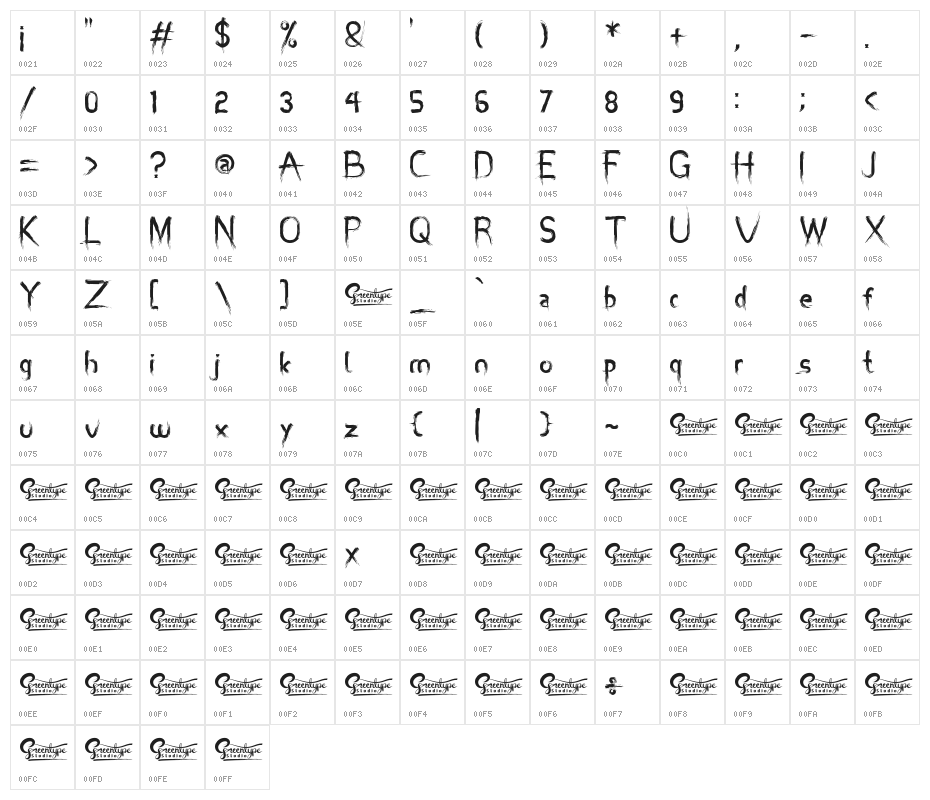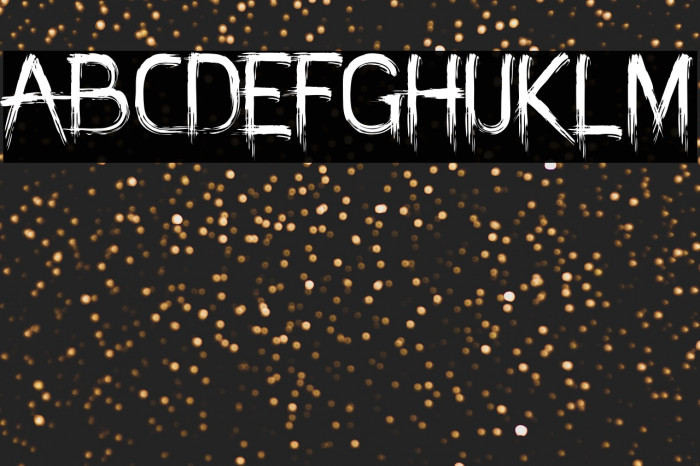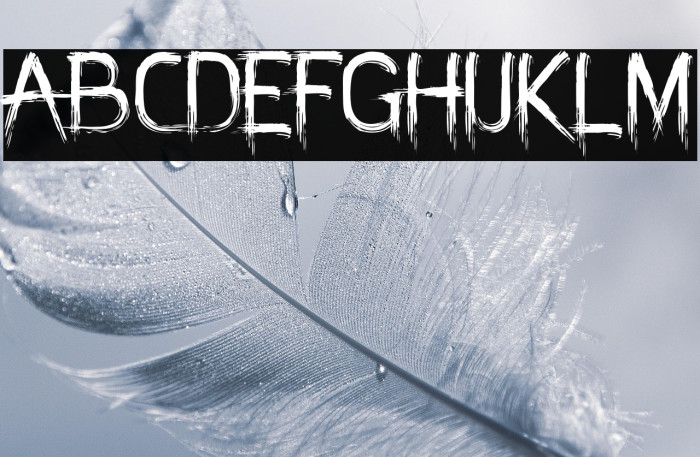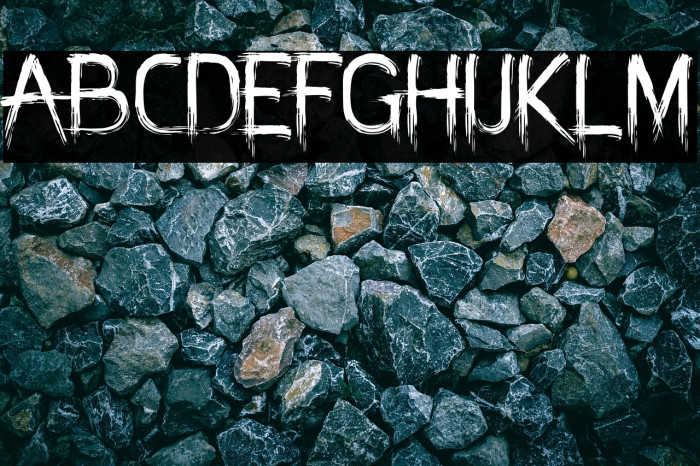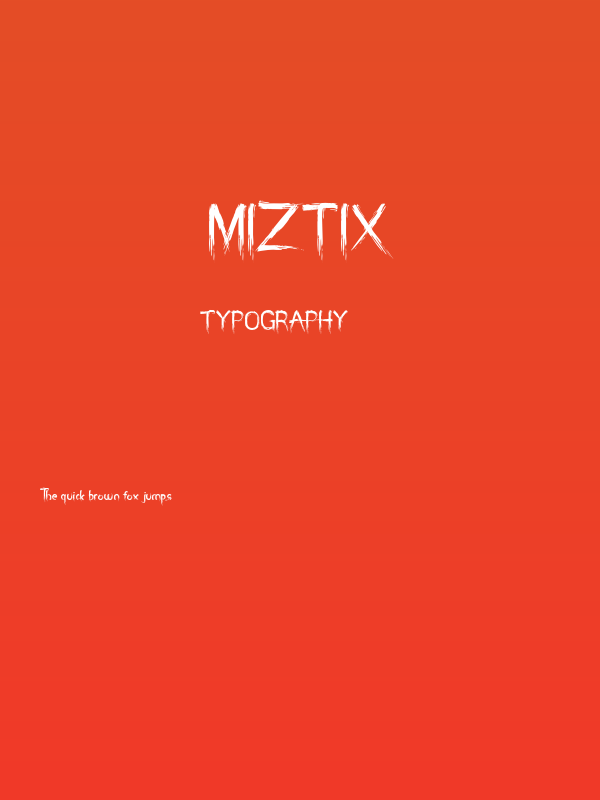
MiZTiX Font
MiZTiX Description
This font features a dynamic, brush-stroke style that exudes energy and creativity. The characters are crafted with a rough, textured appearance, reminiscent of hand-painted lettering. Each letter has a unique, artistic flair, with varying stroke thicknesses that add depth and movement. The uppercase and lowercase letters maintain a consistent style, while the numbers and special characters integrate seamlessly with the overall design. This font's bold and expressive nature makes it ideal for projects that require a strong visual impact.
| Proposed Projects | Ideal for artistic posters, album covers, branding for creative industries, and event invitations. |